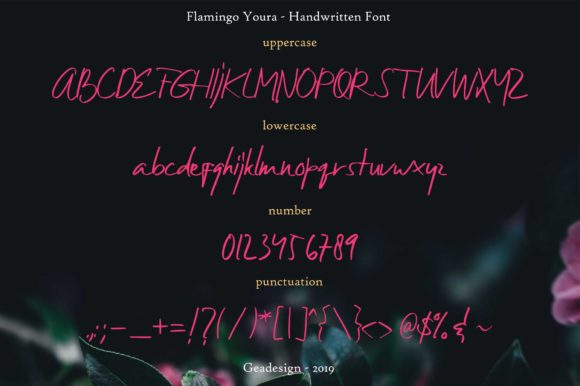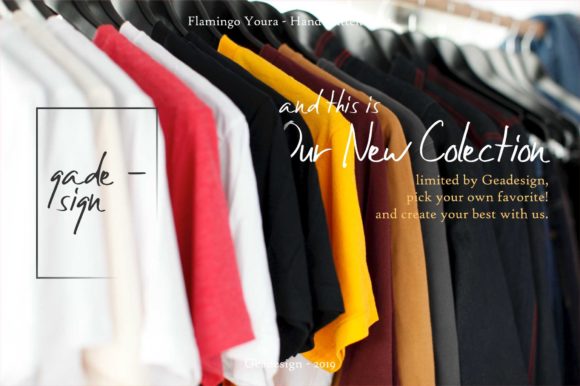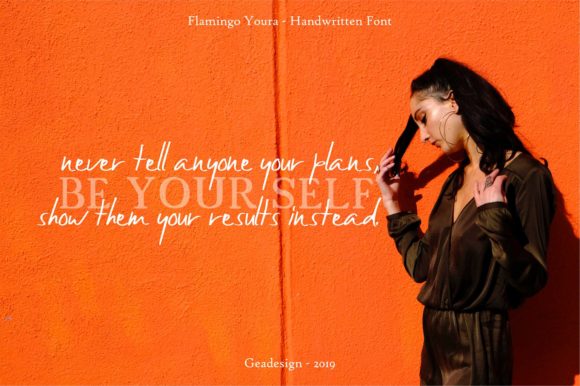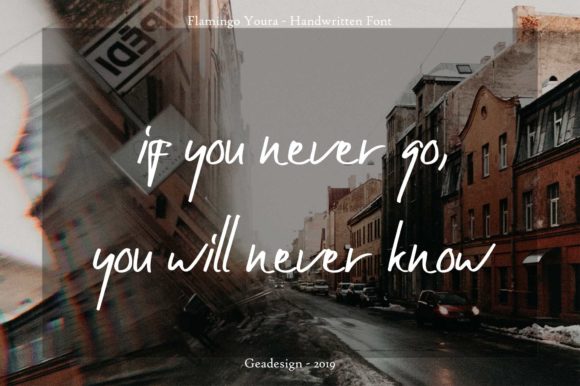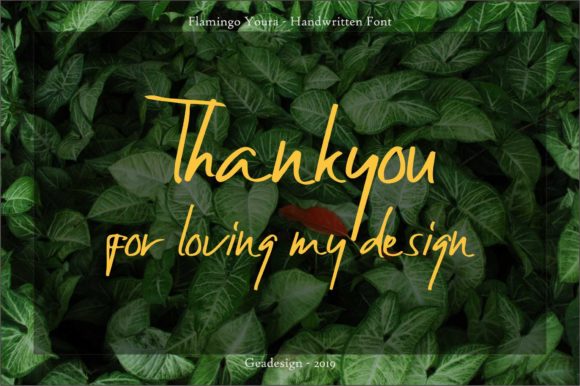
Flamingo Youra Font
About Flamingo Youra Font
The Flamingo Youra is a beautiful handwritten font. It has a cool, sweet, and classy touch which can be used for branding, quotes, wedding stationary, and much more!